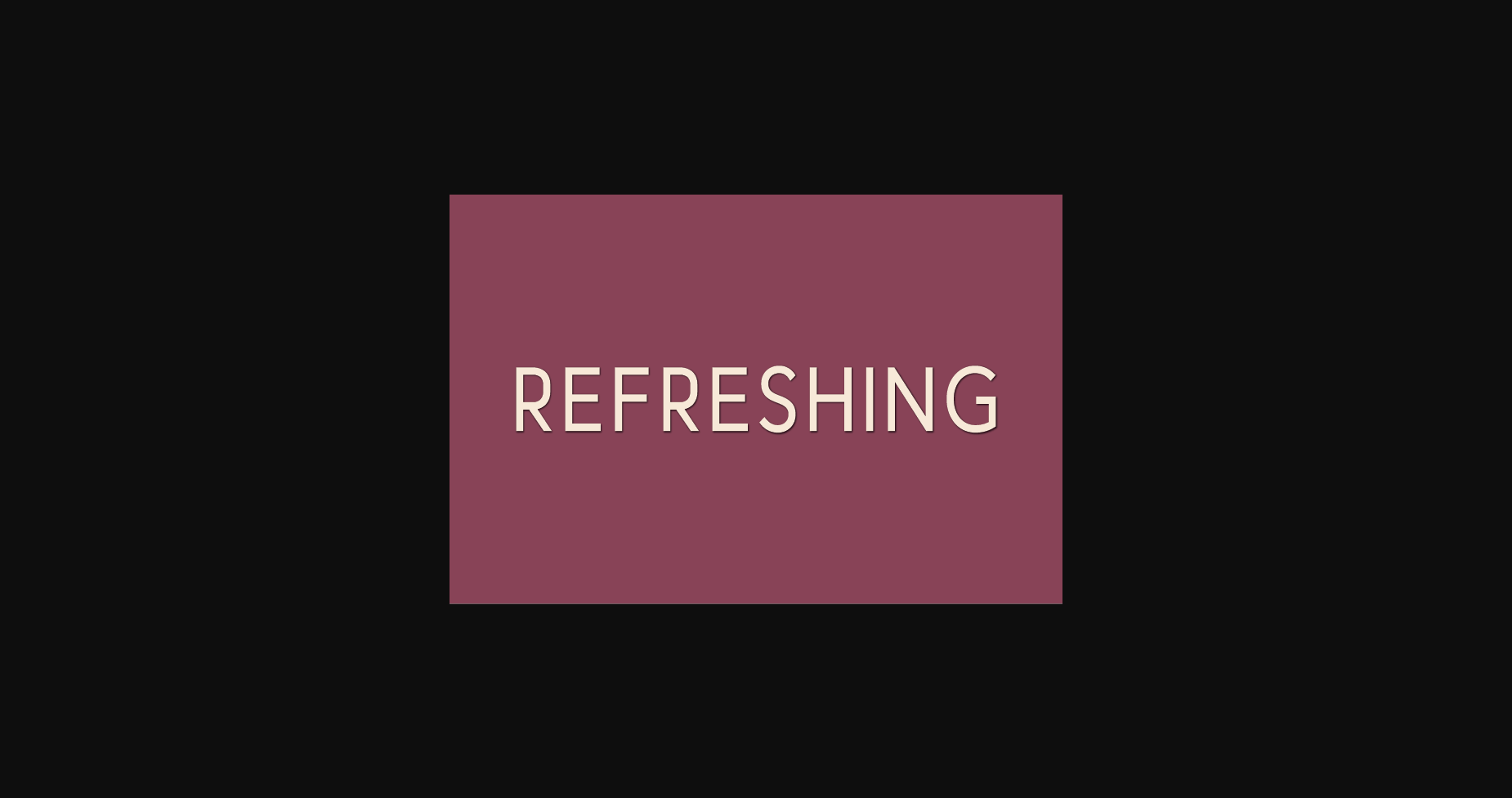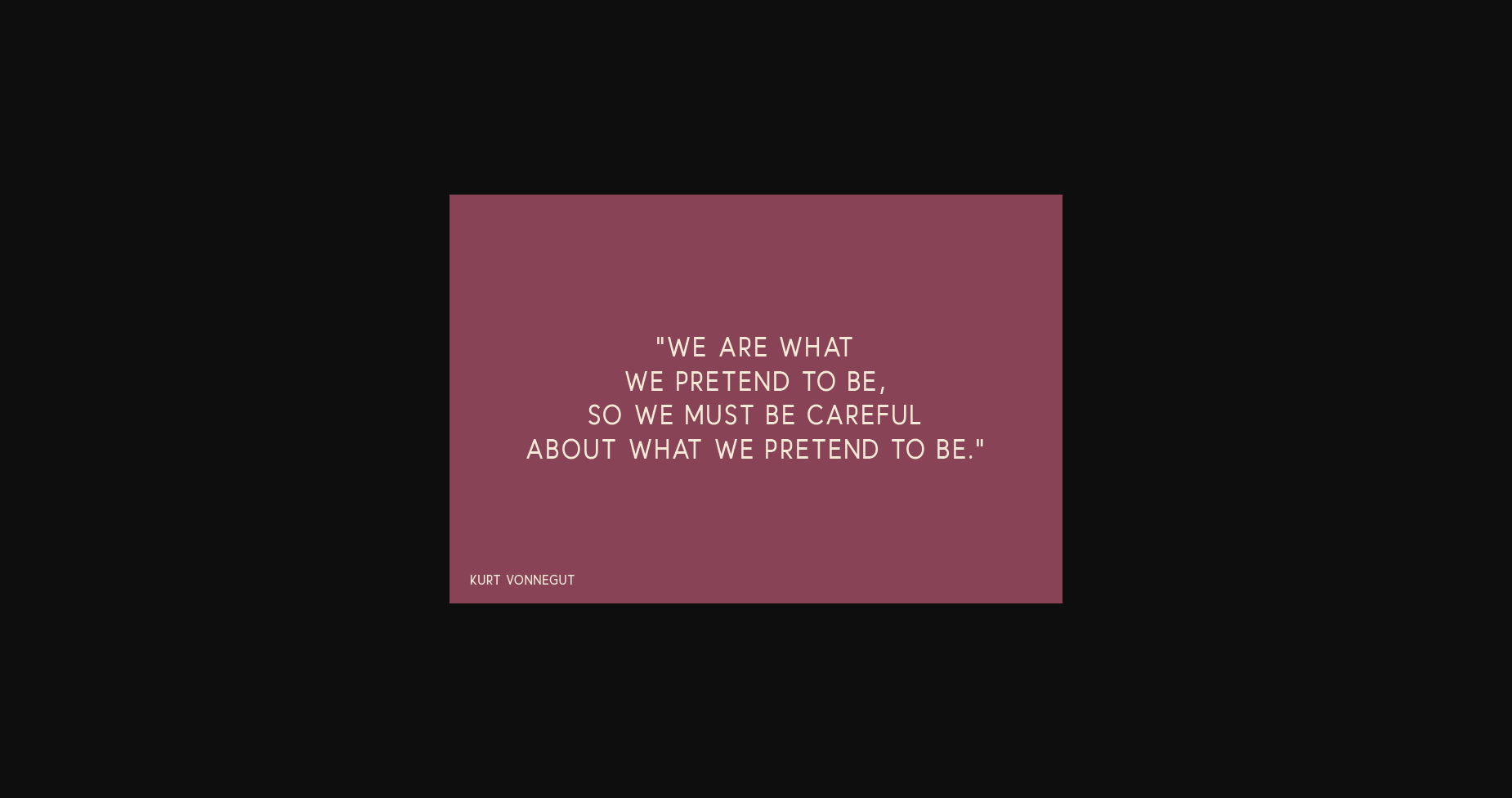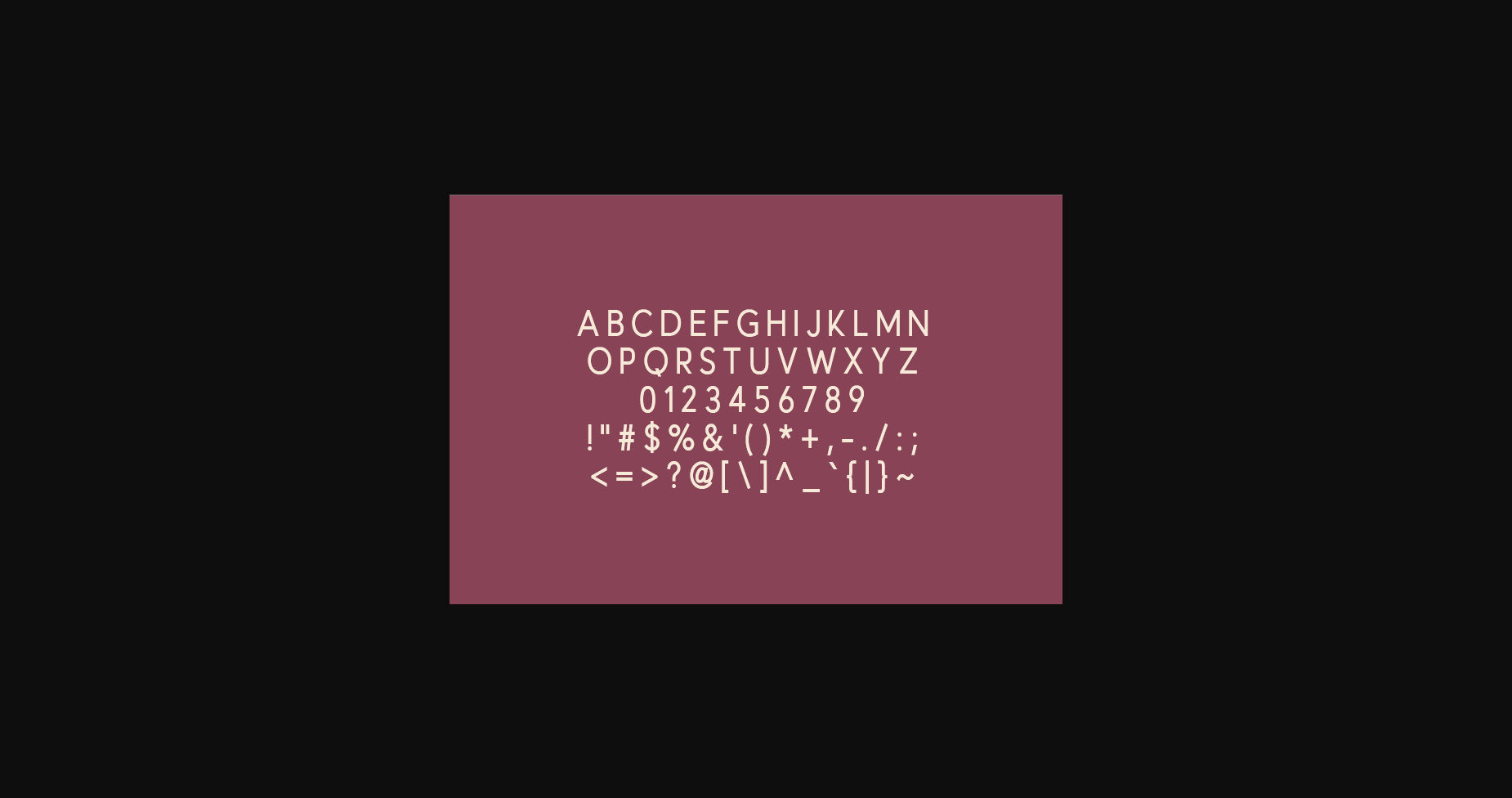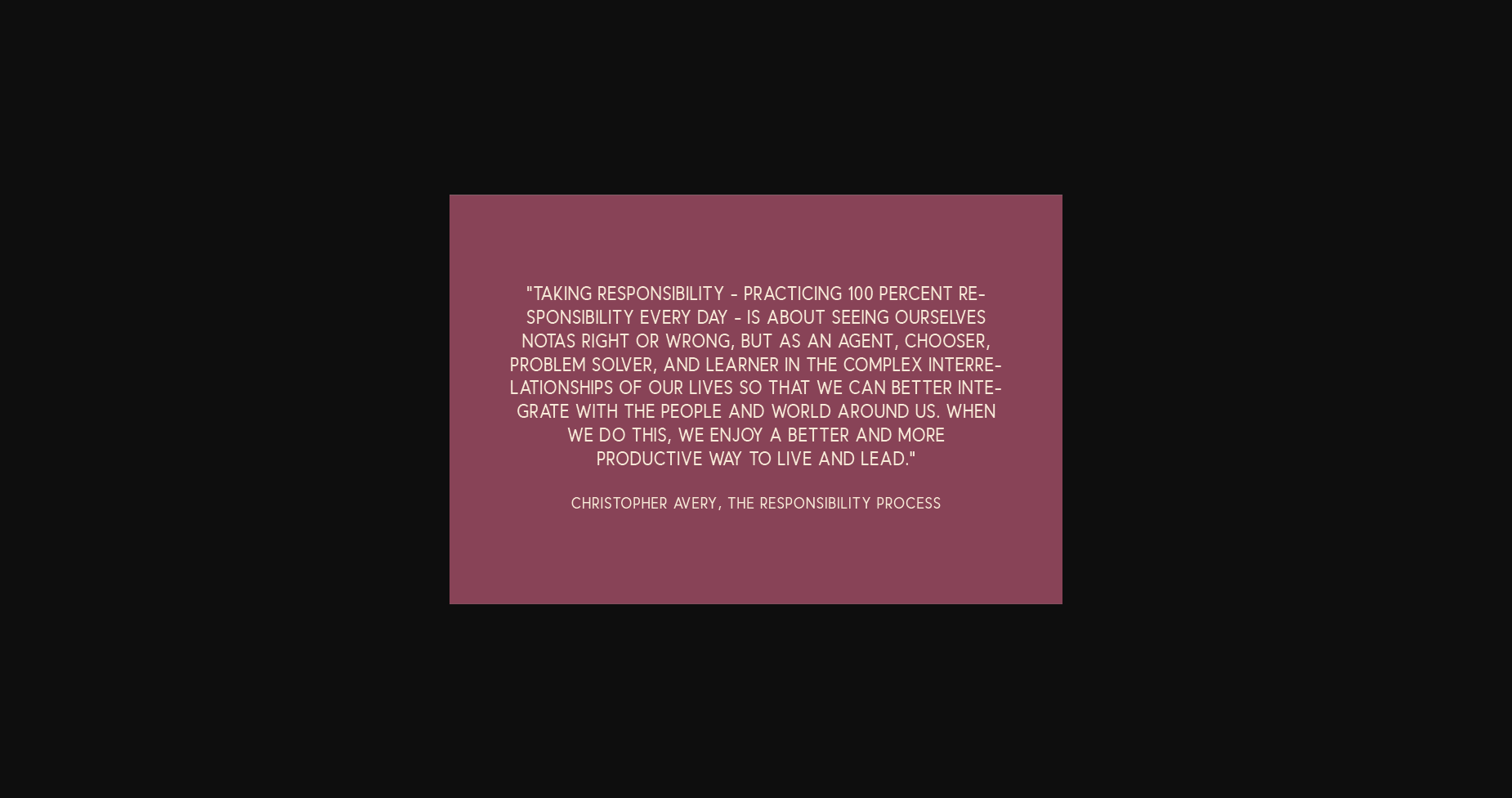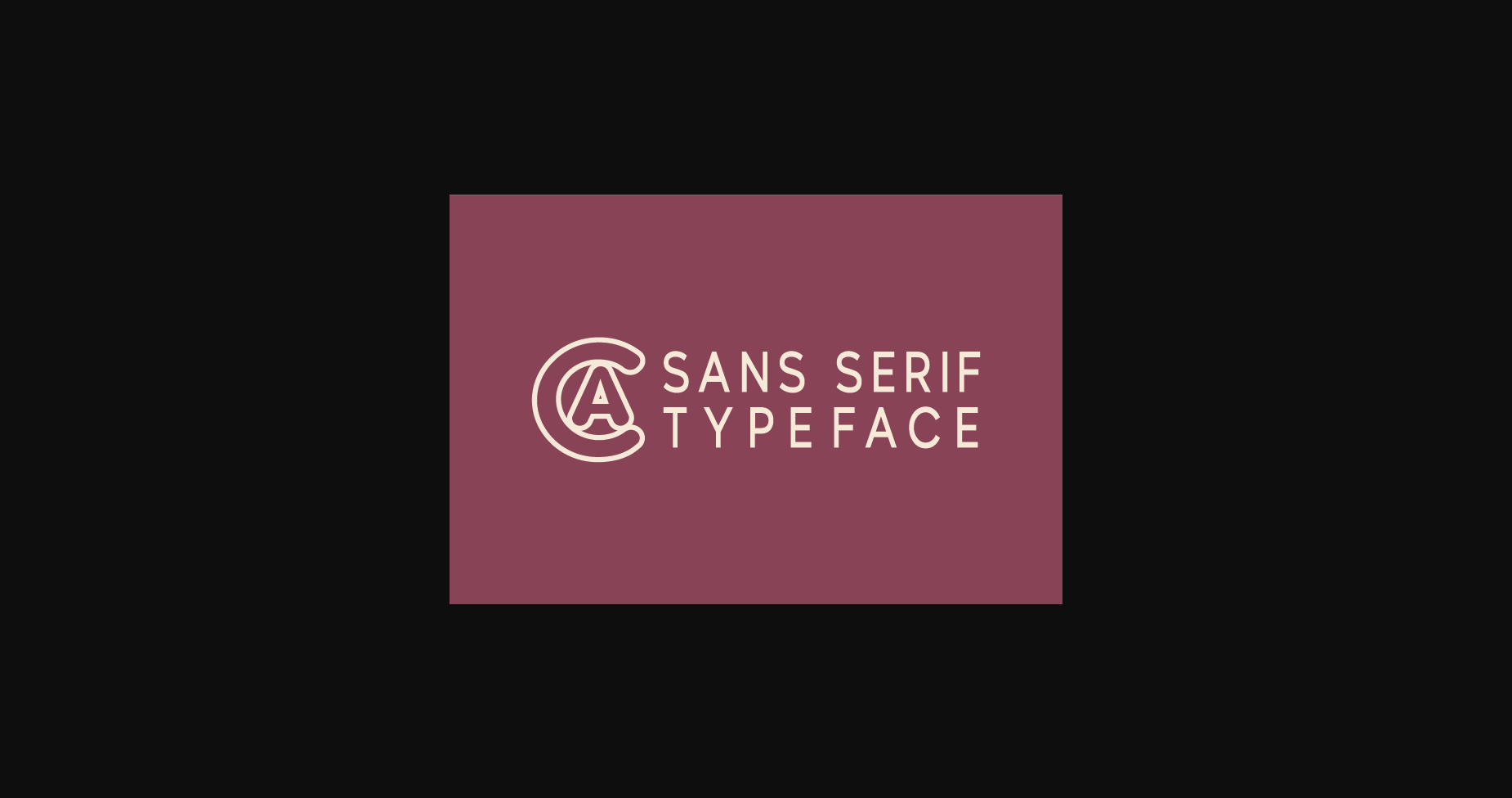
About Refreshing Font
Introducing Refreshing, a modern, classy sans serif typeface.
An extremely versatile font, perfect for logos, weddings, invitations, quotes, advertisements, print, magazines, and more!